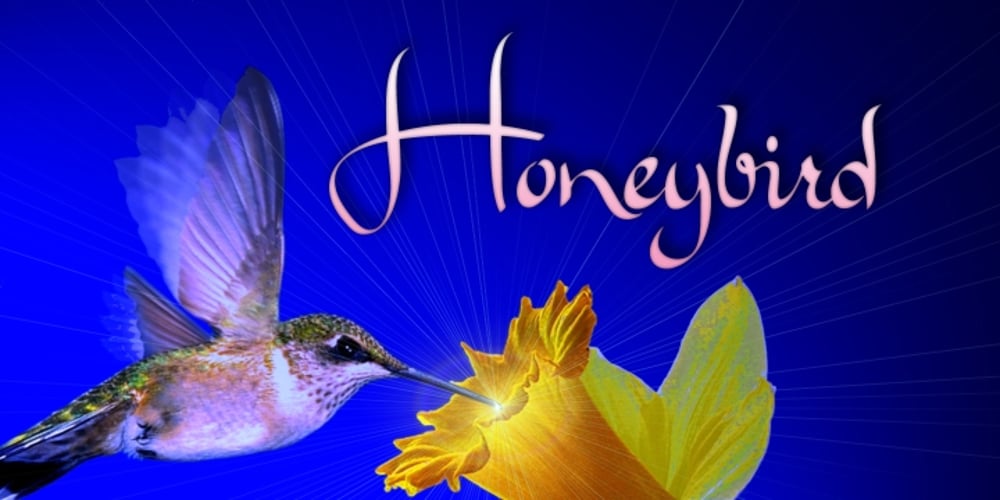
Honeybird Font Family was designed by Anton Scholtz and published by Scholtz Fonts. Honeybird contains 1 styles and family package options. Honeybird originated in a study of calligraphic fonts of the 20th century, took its own direction and developed into a slightly quirky, very readable contemporary script font, typical of Anton Scholtz’s free-wheeling style. The exaggerated upper case characters create an exuberance, while the small lower case characters maintain the impression of restrained order with flashes of quirky contrast. Honeybird has 45 OpenType ligatures, designed to ensure the smooth flow of the text.